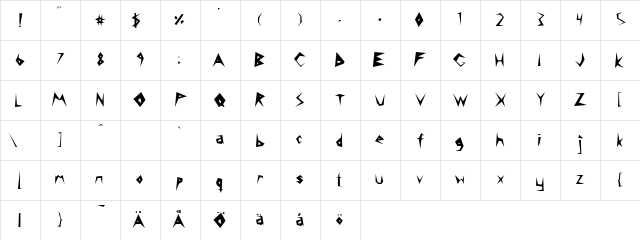
14 minutes sharp
Style: sharp
Design Context for 14 minutes
14 minutes is a composed and adaptable typeface that performs quietly and consistently across a wide range of design contexts.